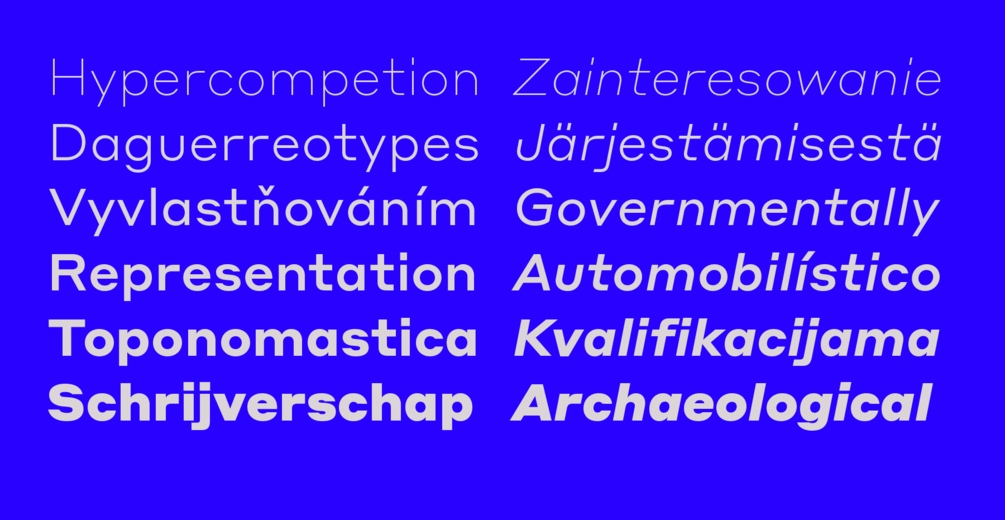
Styrene LC Font
Styrene, a sans serif by Berton Hasebe, is another exploration of proportion and simplicity in type design. The initial inspiration for the family was a charmingly awkward sans serif called Breede Schreeflooze shown in an early 20th century type specimen published by the Enschedé Typefoundry in the Netherlands. However, Styrene has an ahistorical attitude. Its name was inspired by the purposefully synthetic feeling to its curves and geometry. Styrene is characterized by its proportions: typically narrow characters like f j r and t are hyperextended and flattened, adding openness in unexpected places. Styrene’s two widths offer different textures in text: version A is dogmatically geometric, with a stronger overall personality, while version B is narrower for more reasonable copyfit, though not truly condensed.